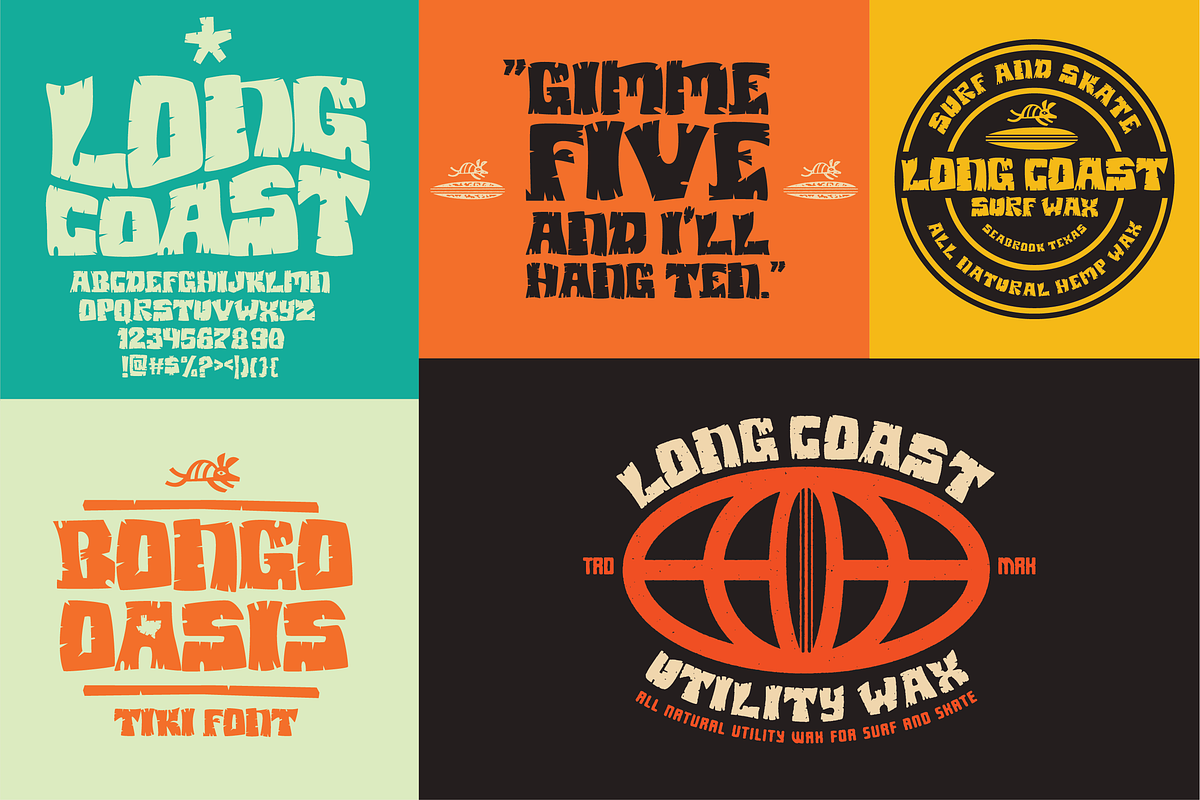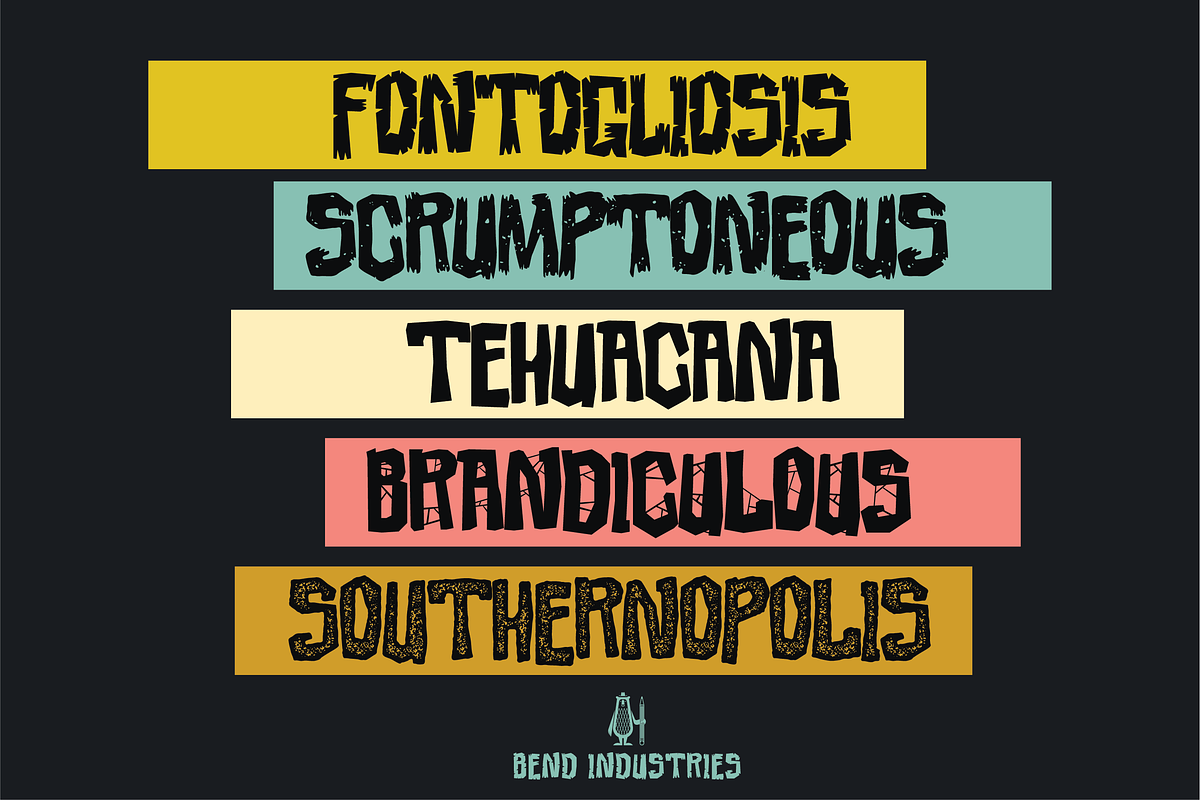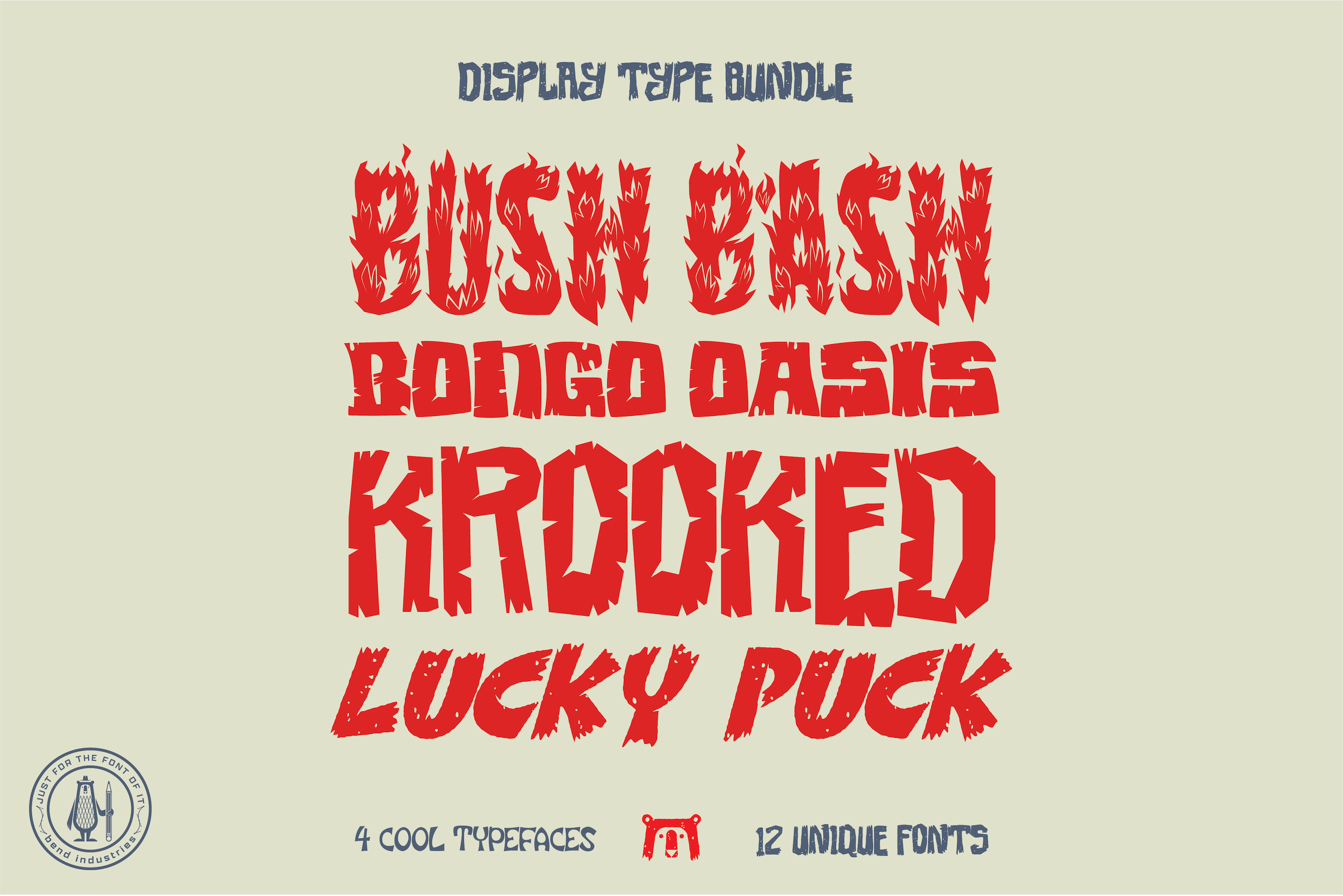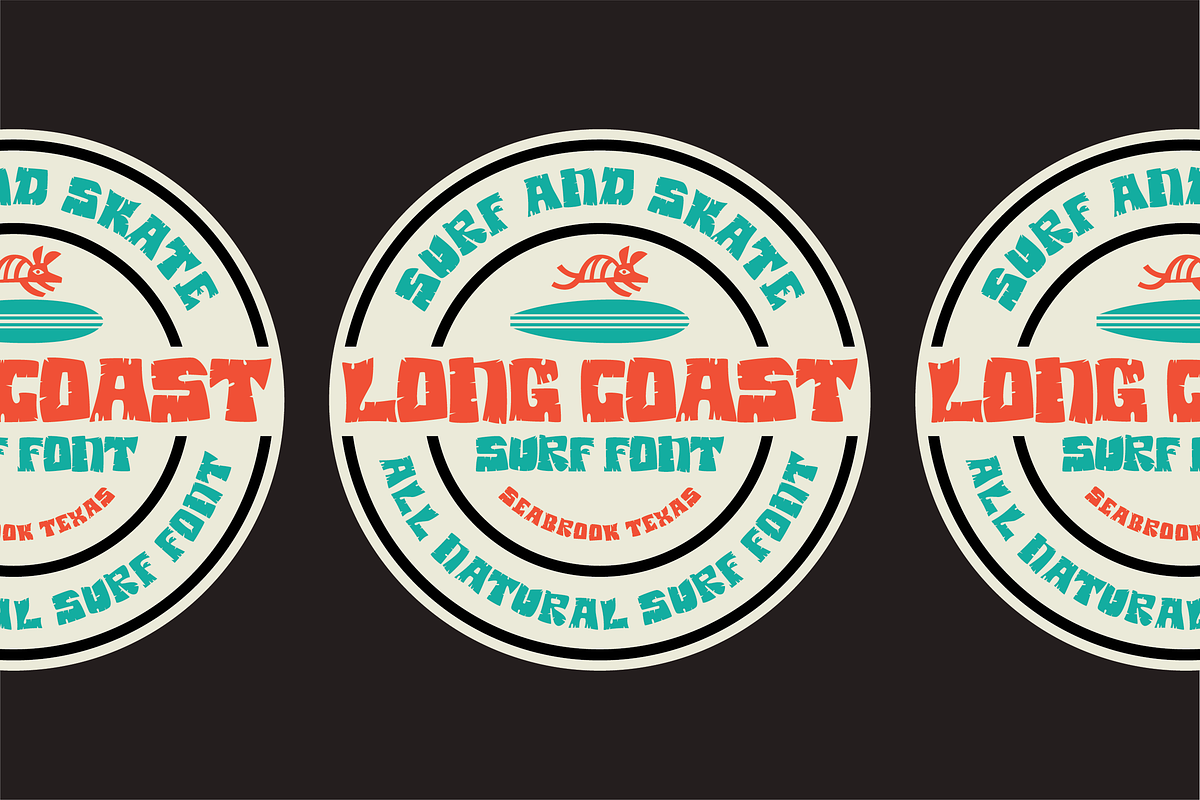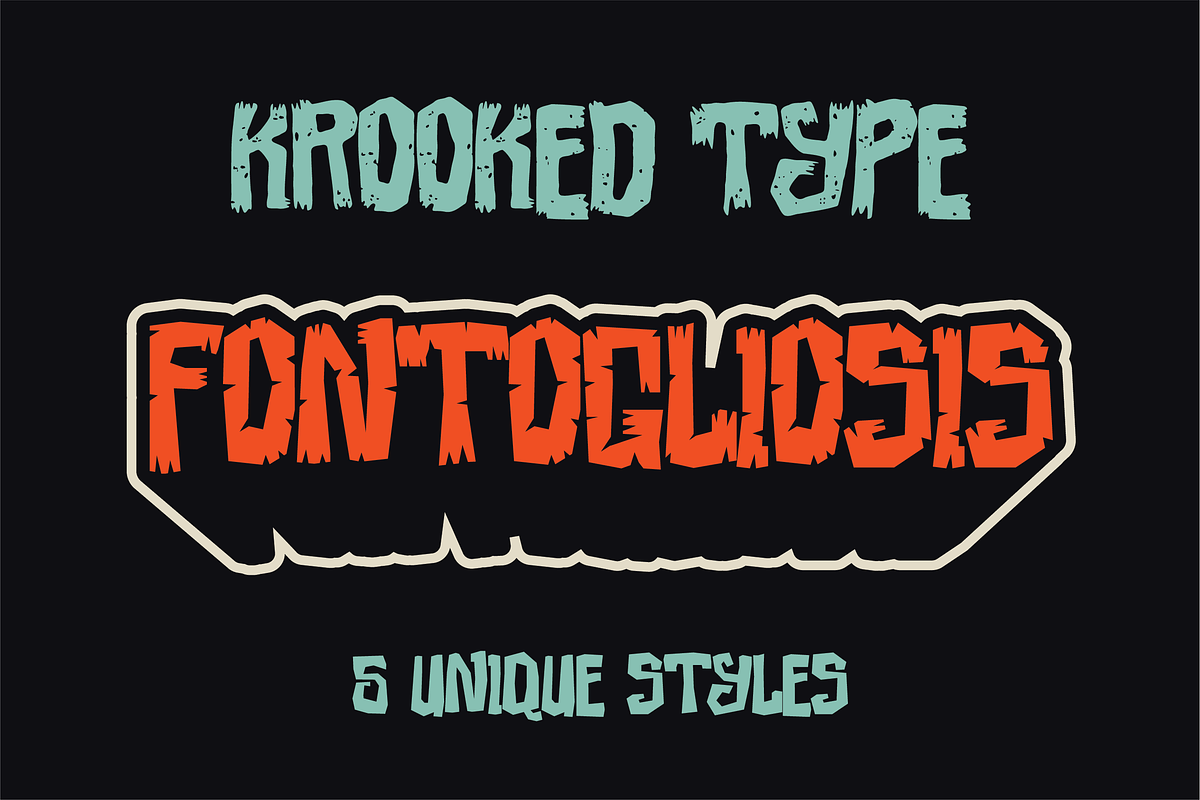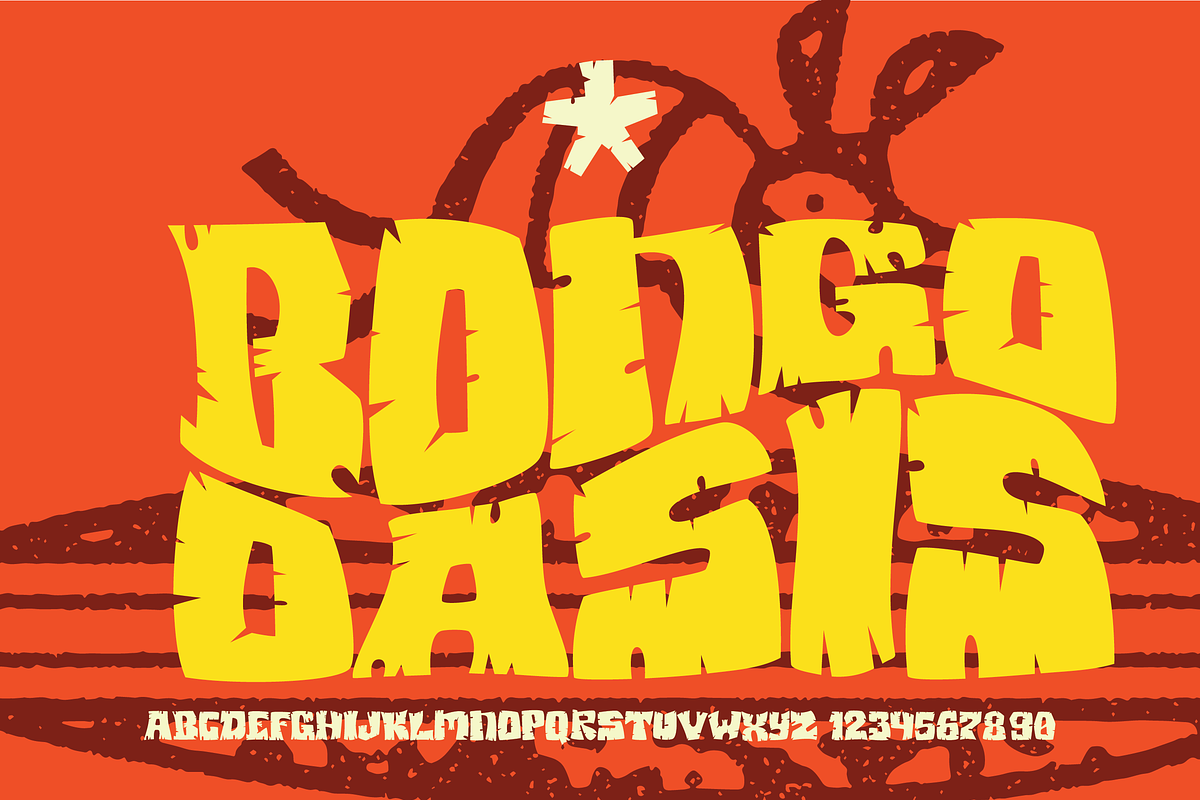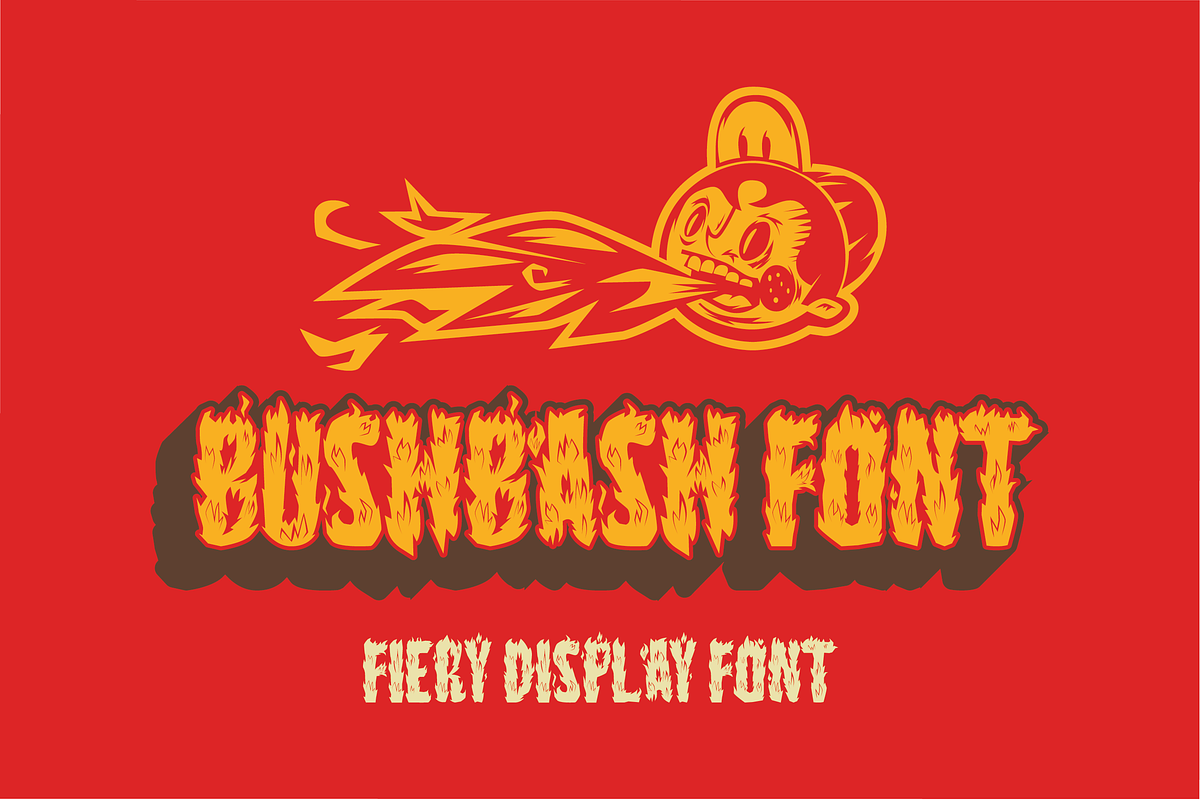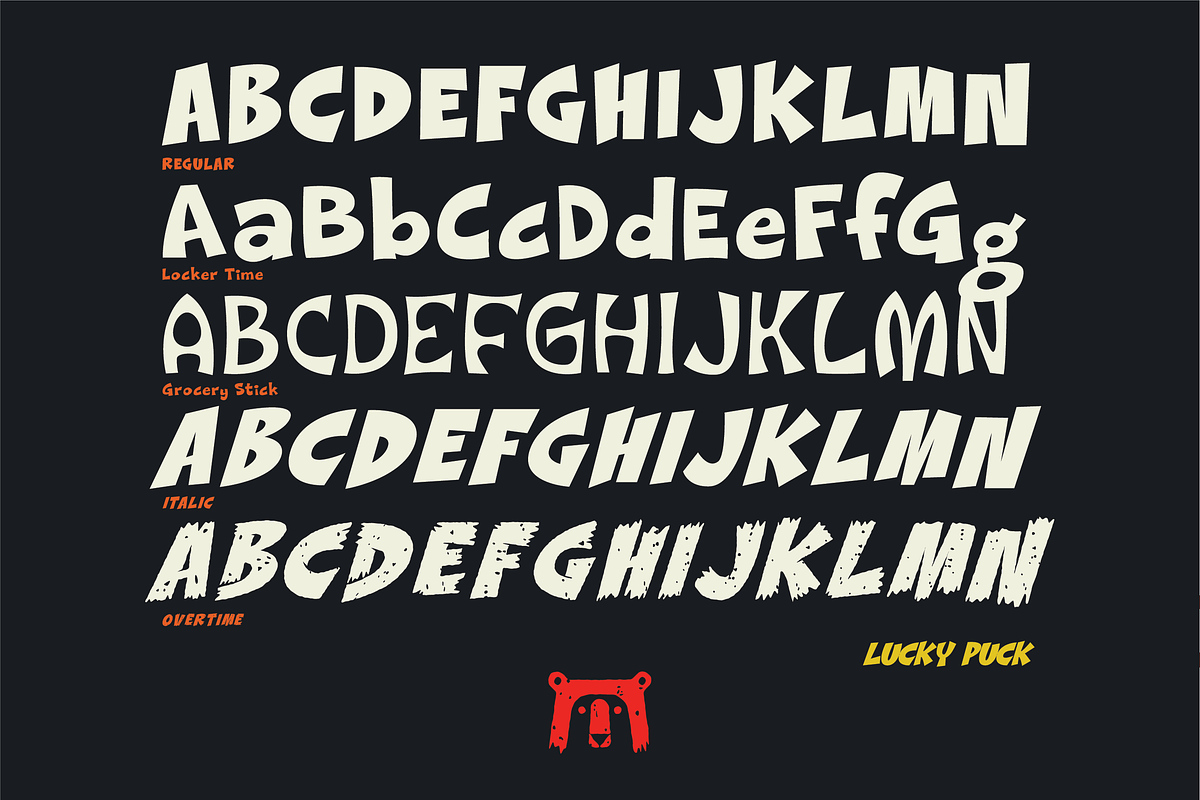
Font Collection | 4 Unique Styles
This collection brings together four of Bend Industries’ most distinctive display fonts—Krooked, Bongo Oasis, Bush Bash, and Lucky Puck. Each typeface delivers its own personality, ranging from tropical retro curves and mid-century inspired forms to bold, expressive lettering designed to command attention. Built for logos, apparel, packaging, posters, and standout branding, these fonts are crafted to give designers flexible, high-impact typographic tools. Whether you’re developing a streetwear label, creating promotional graphics, or building a memorable brand identity, this collection offers versatile headline styles that balance character and clarity. Designed in Seabrook, Texas, by Bend Industries, each font reflects a commitment to original drawing, strong silhouettes, and distinctive visual storytelling through typography.